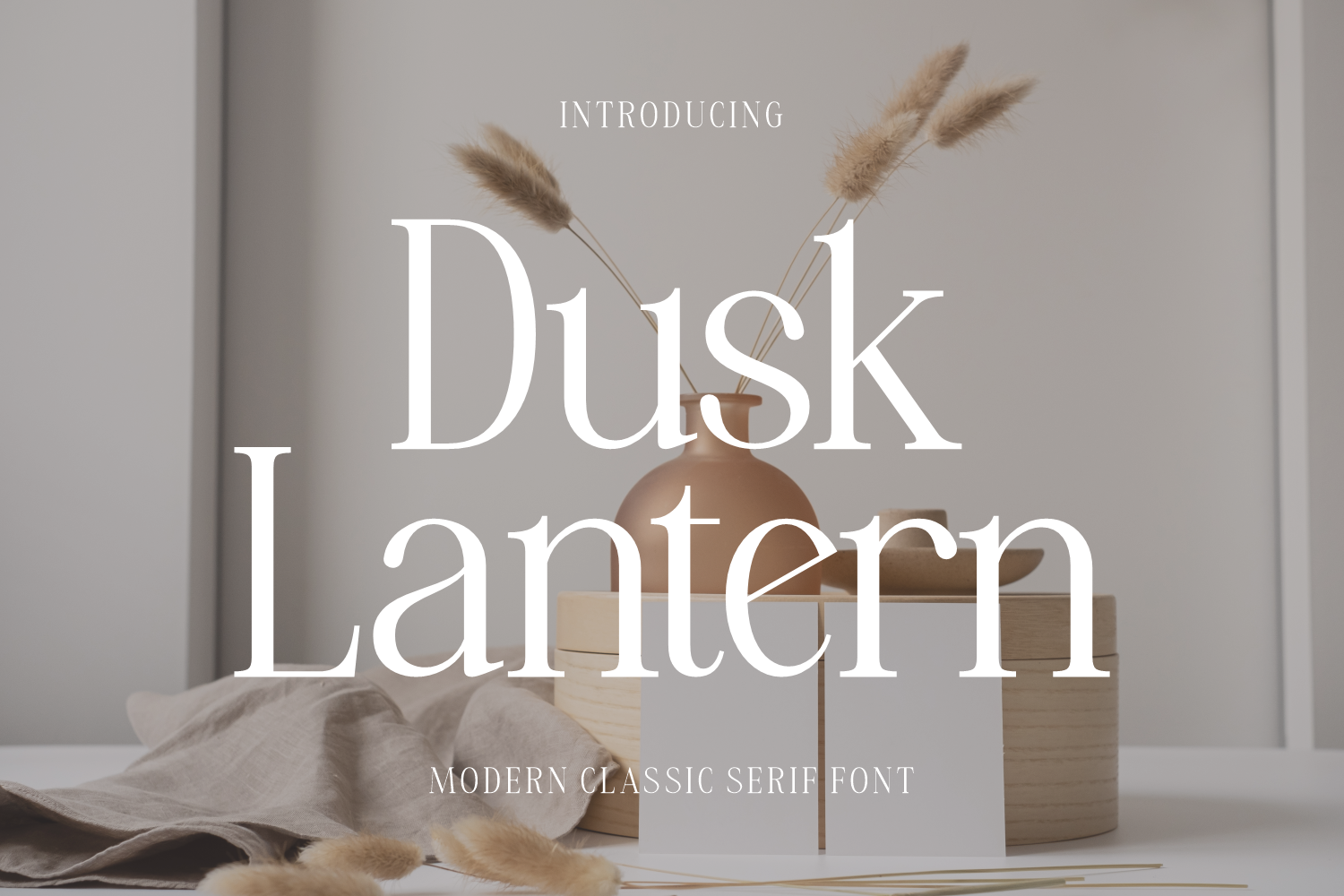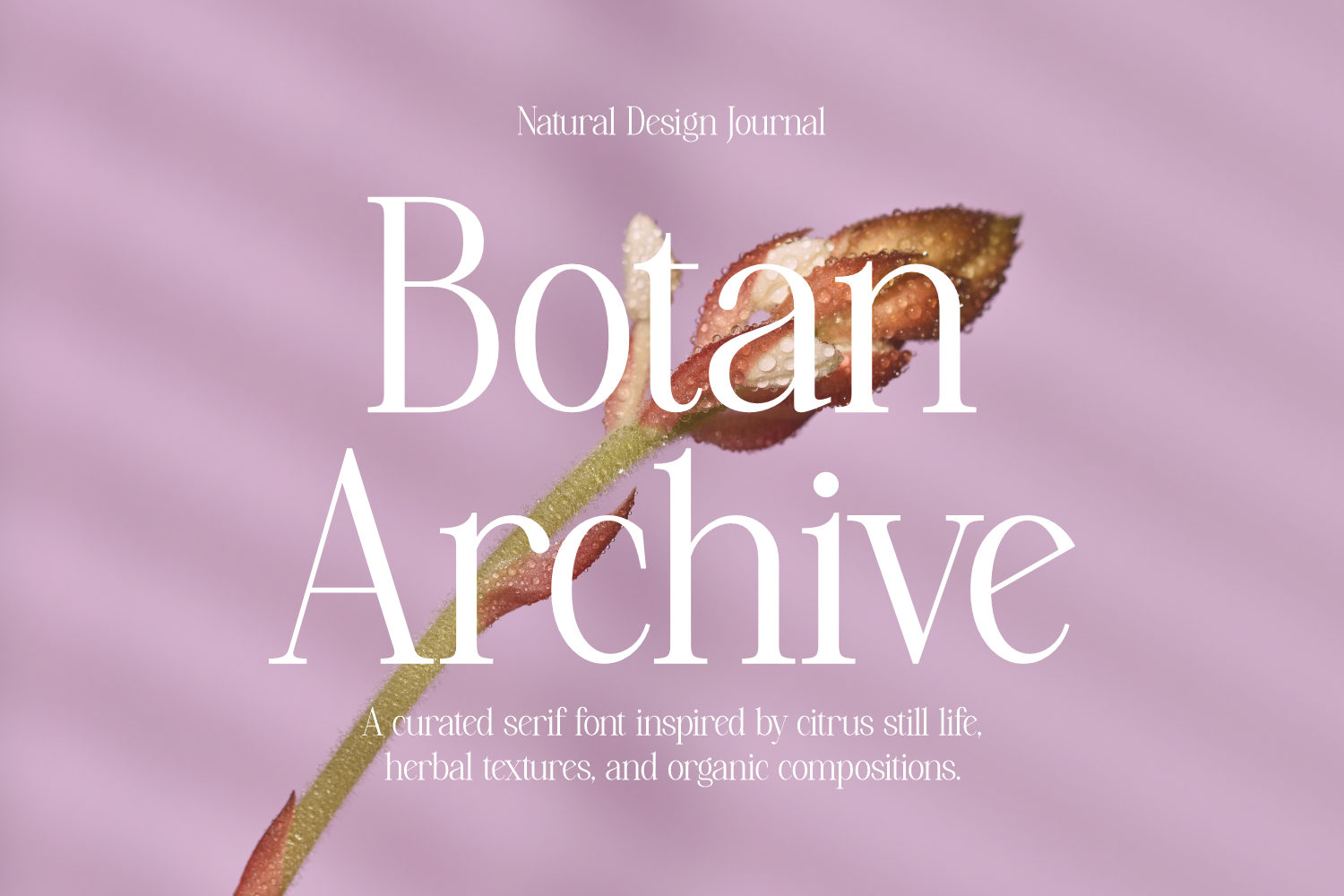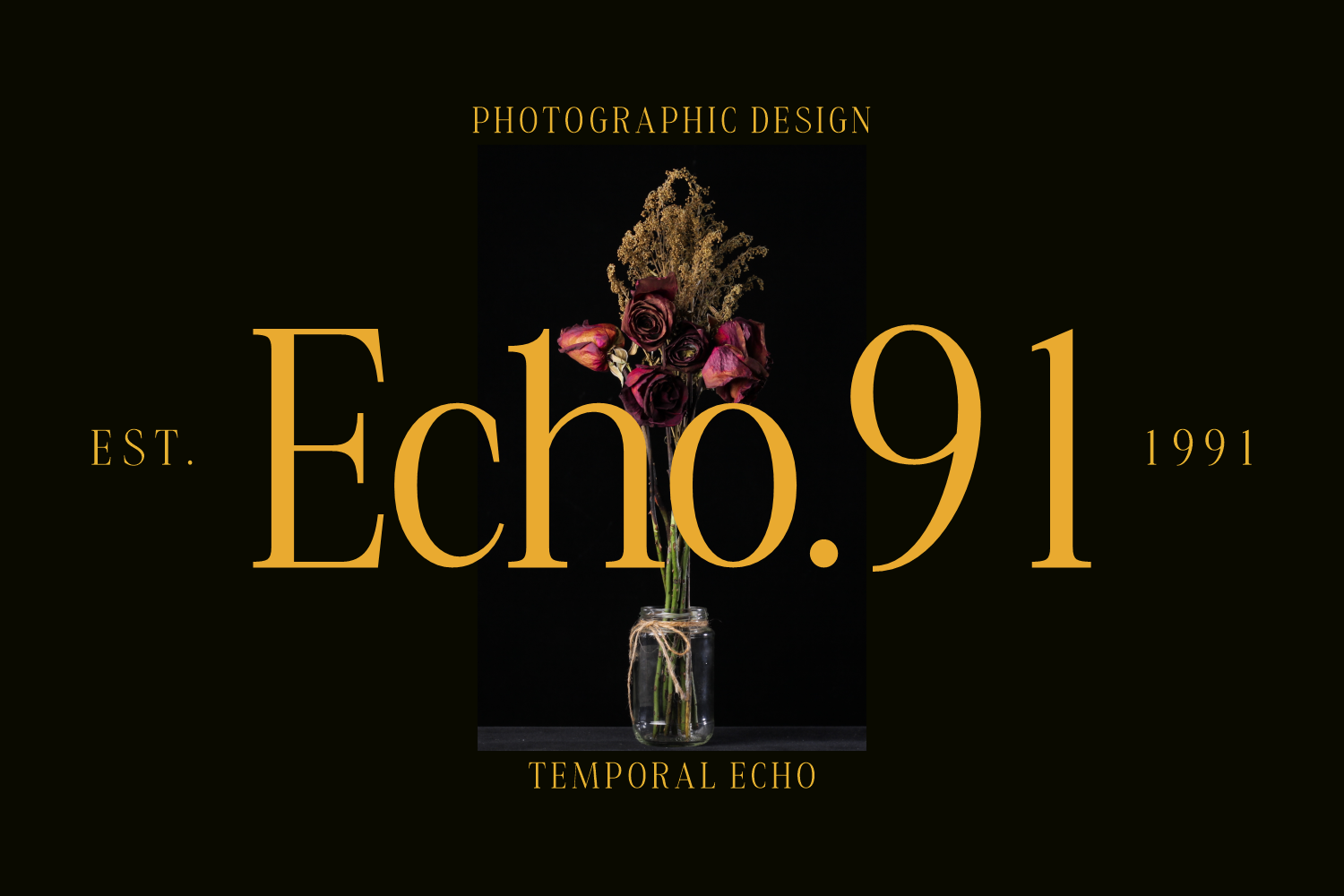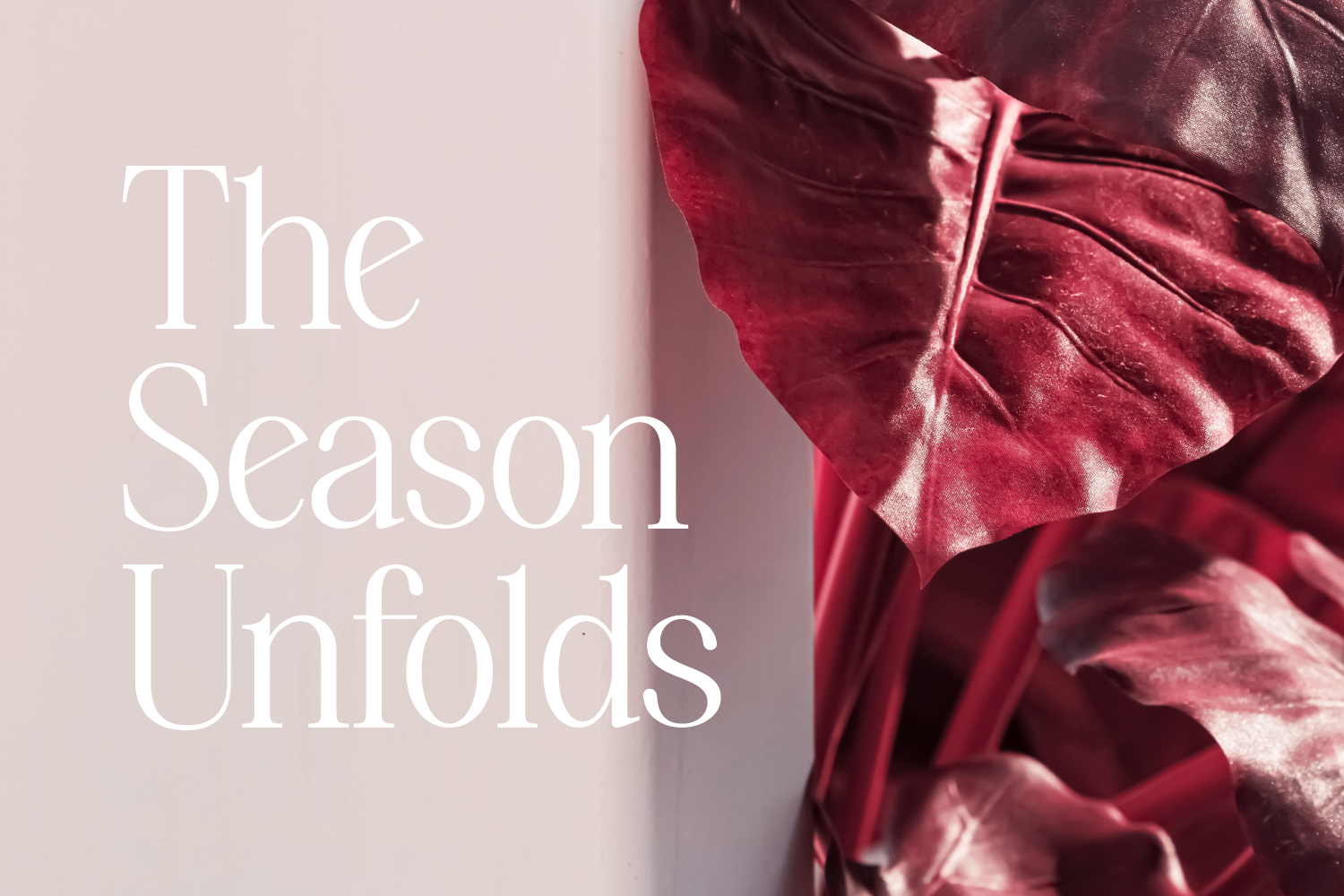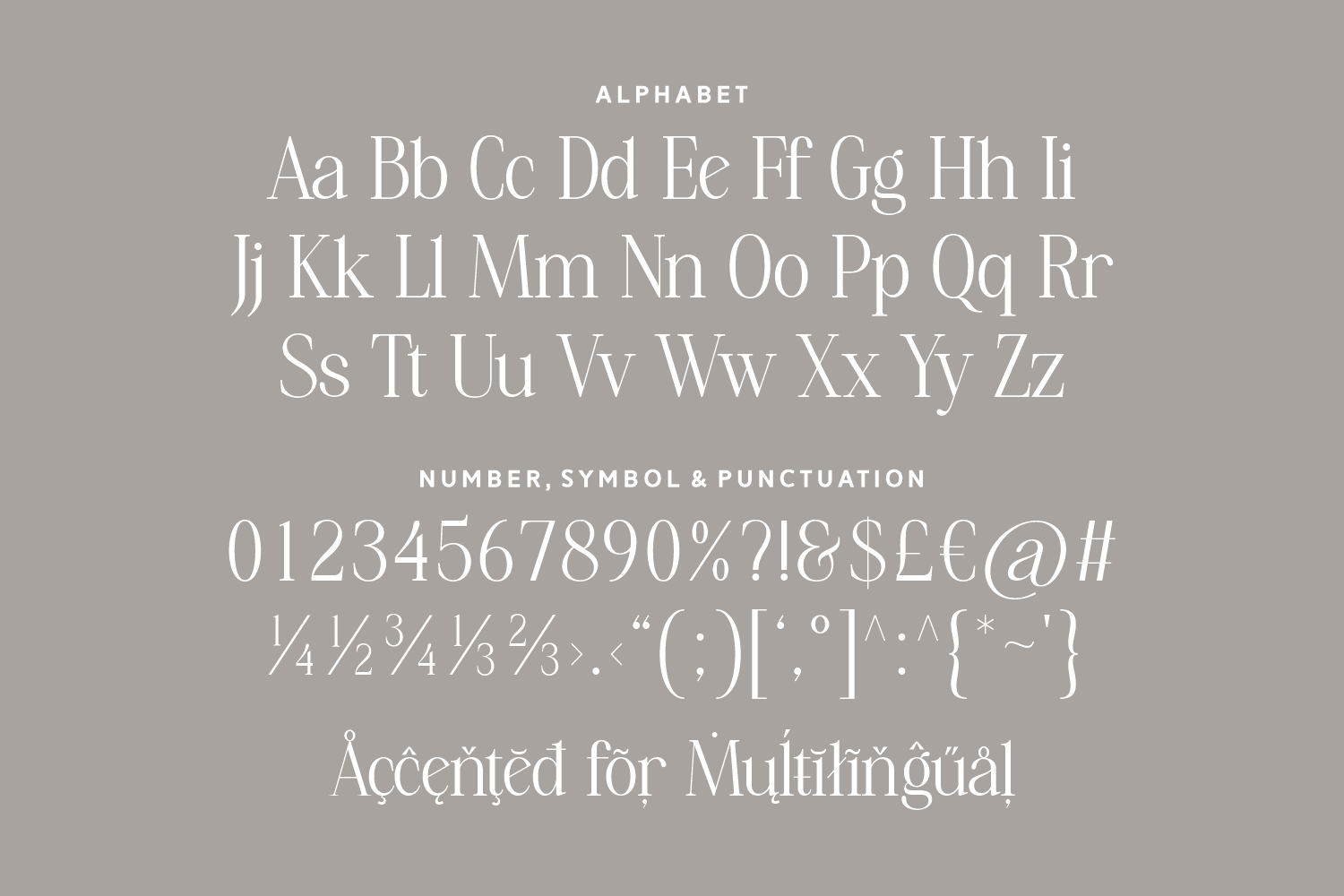
Dusk Lantern is a modern classic serif font that blends soft curves with elegant structure. Inspired by quiet beauty and timeless design, Dusk Lantern offers full multilingual support and is perfect for conveying elegance, warmth, and creative sophistication.